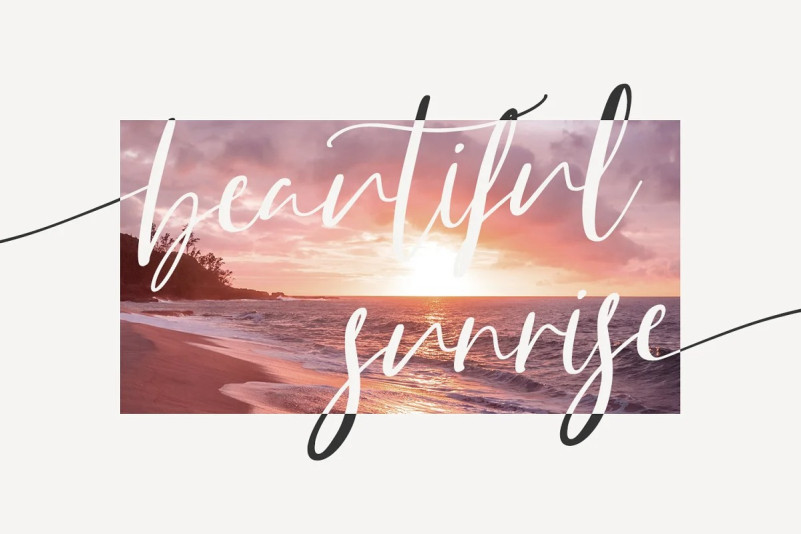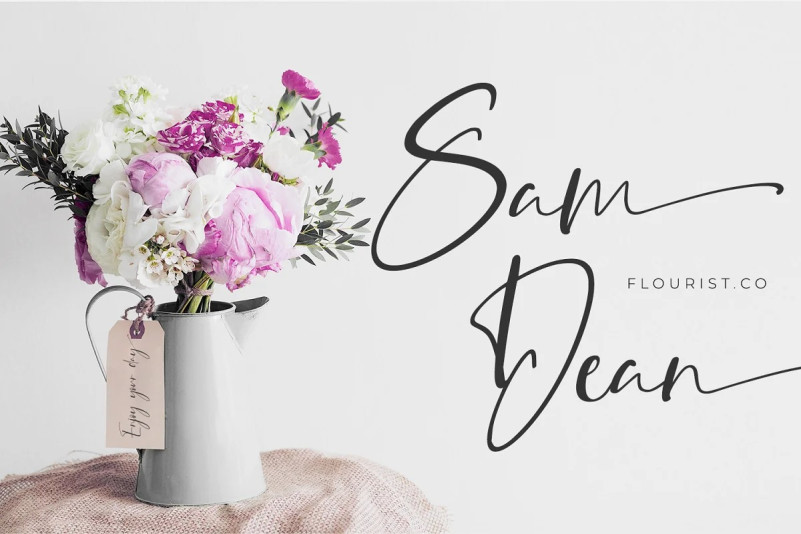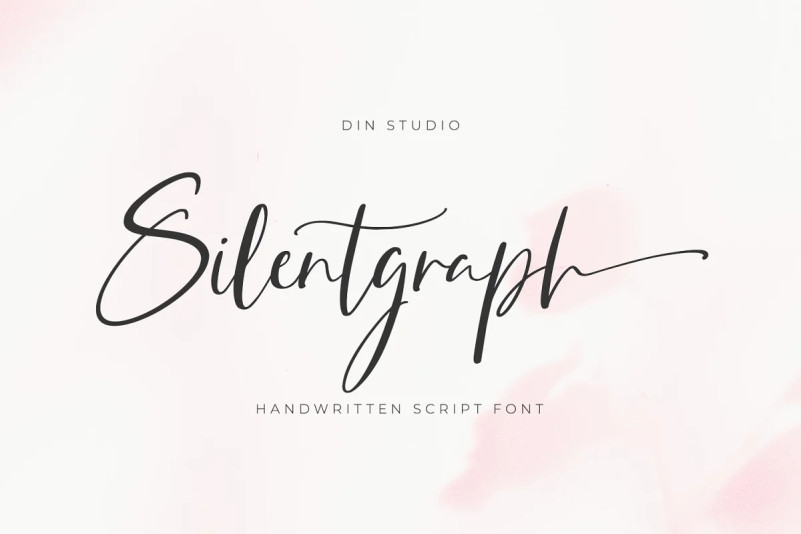
Silentgraph Font
Silentgraph Script Font is a script font made from handwriting in lovely designs to make your designs prominent. Every stroke expresses beauty and cursive styles of which letters are interconnected. Details of each letter show curvy wipes and high contrasts on its edges. Use this font for big-sized texts to be legible.